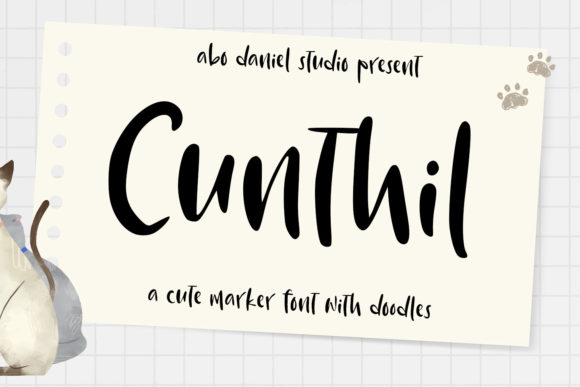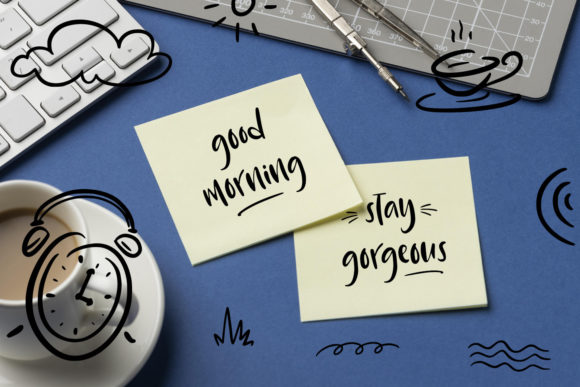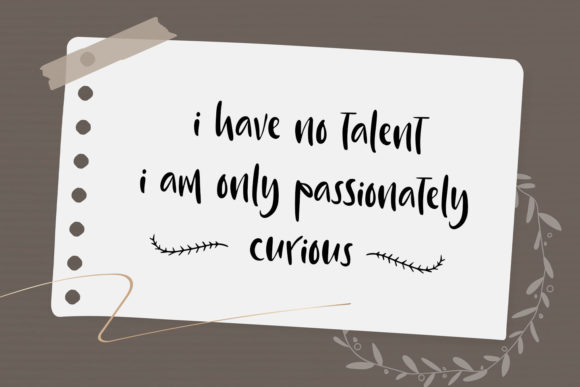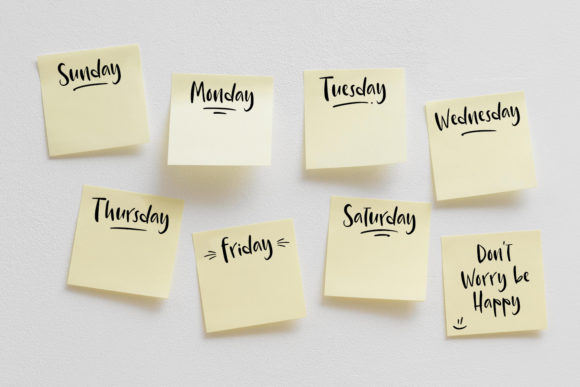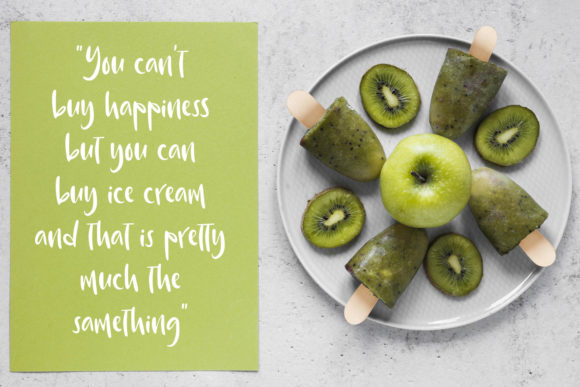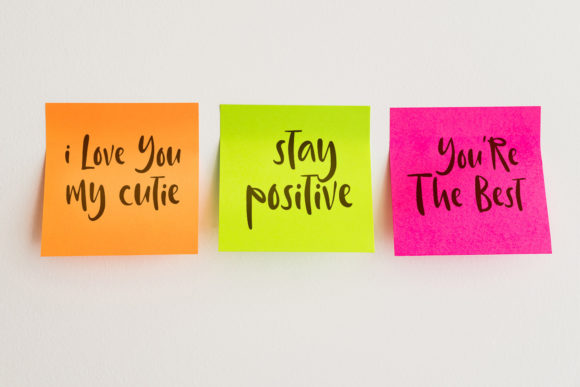
About Cunthil Font
Cunthil is a magical script font carefully created with a touch of elegance. Whether you’re looking for fonts for Instagram or calligraphy scripts for DIY projects, this font will turn any creative idea into a true piece of art!